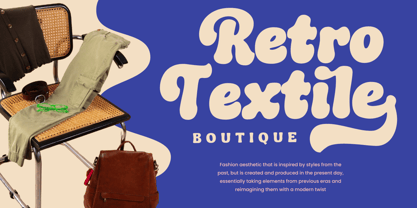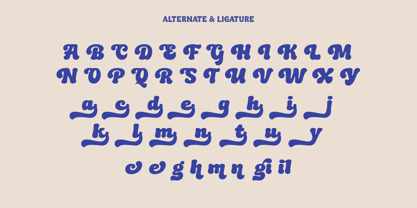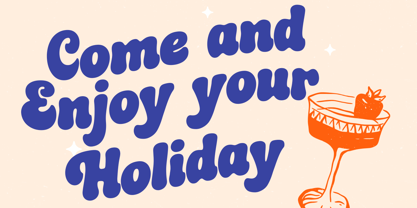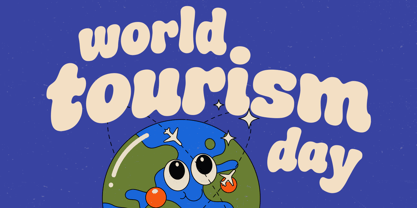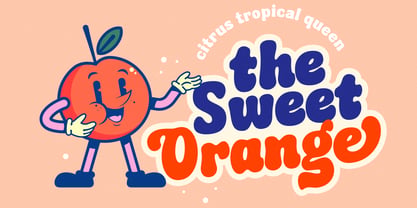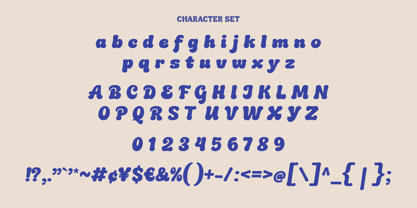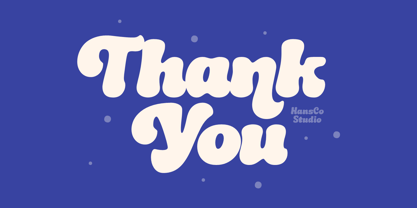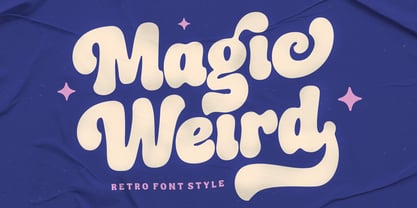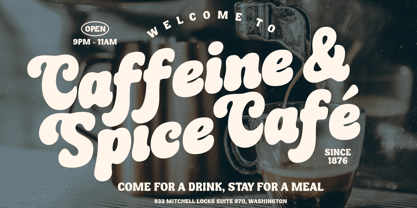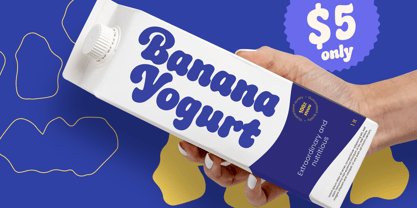
Magic Weird
The Magic Weird Font Family was designed by Burhan Afif and published by HansCo. Magic Weird contains 1 styles. More about this family
Magic Weird Font is a bold retro script font style with rounded touch. Equipped with all complete characters ranging from uppercase letters, lowercase letters, numbers, punctuation marks and multi-lingual support, this font is ready to be used in any project. Very suitable for logotype, Stickers, Packaging design, Cricut Project, headlines, brand identity, posters, magazines, books, YouTube, Instagram, websites, Canva, Corjl or any of your creative design projects. Use this Magic Weird Font to add that special modern retro touch to any design idea you can think of!
Features :
• Uppercase & Lowercase
• Numbers & Punctuation
• Multilingual
• Alternate Character